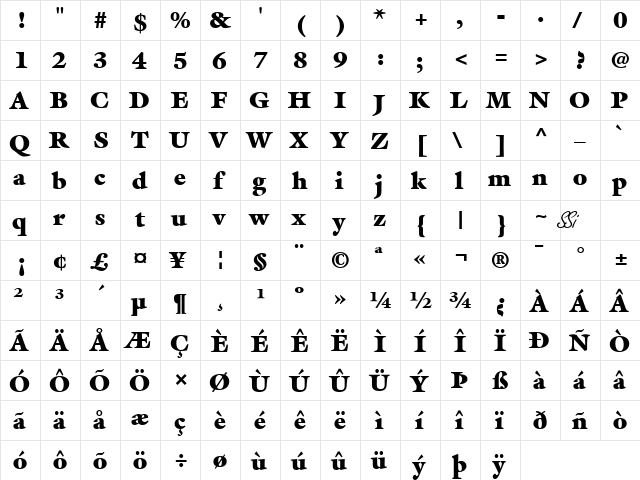
Acanthus Black SSi Extra Black
Design Context for Acanthus Black SSi Typeface
Acanthus Black SSi is a composed and adaptable typeface that performs quietly and consistently across a wide range of design contexts.